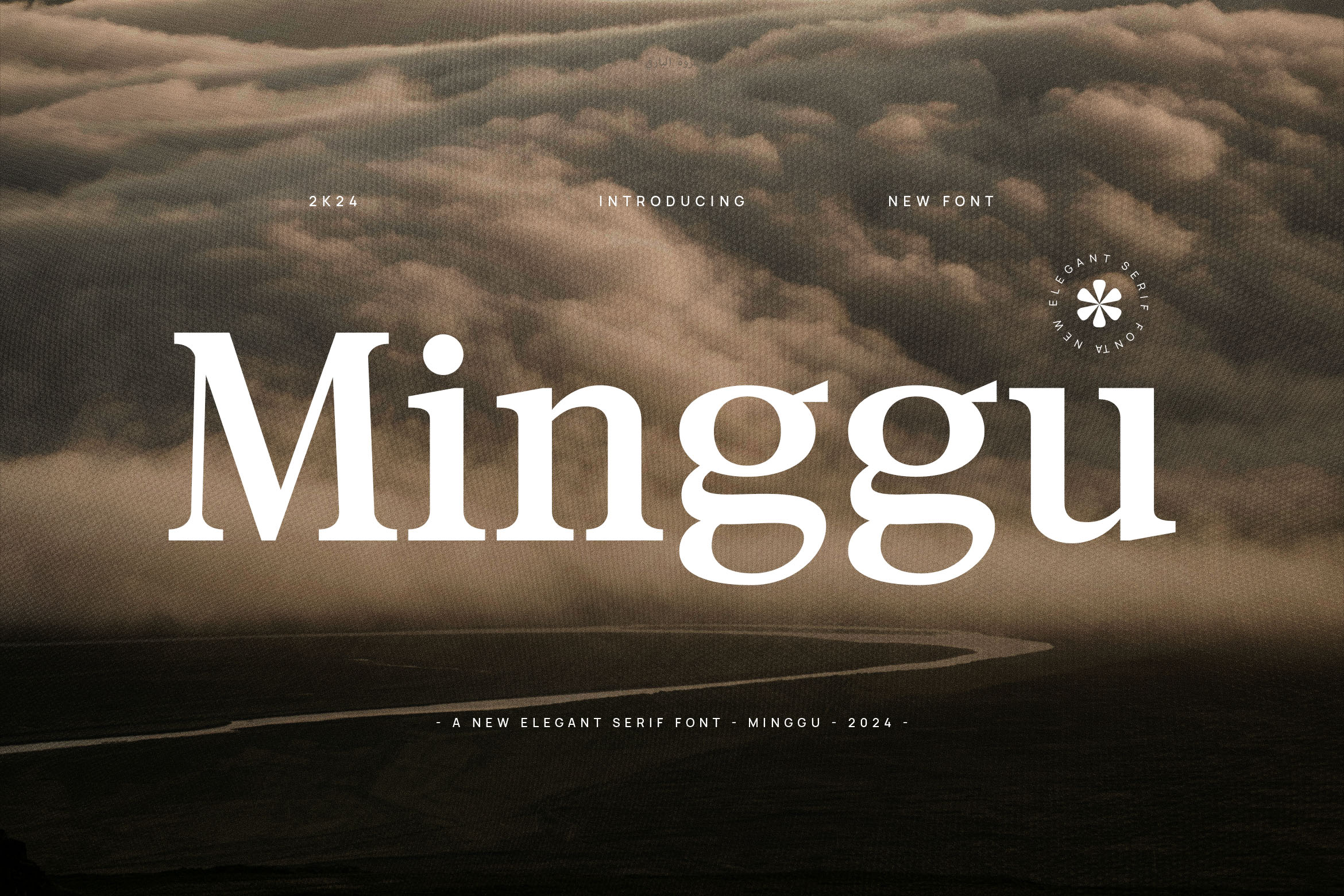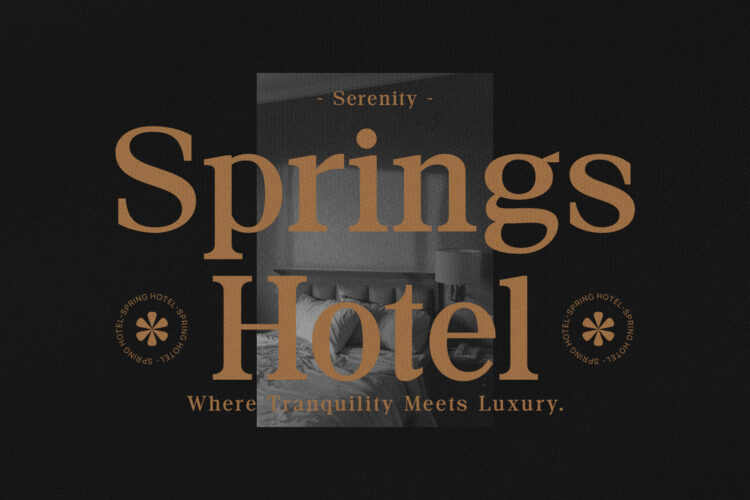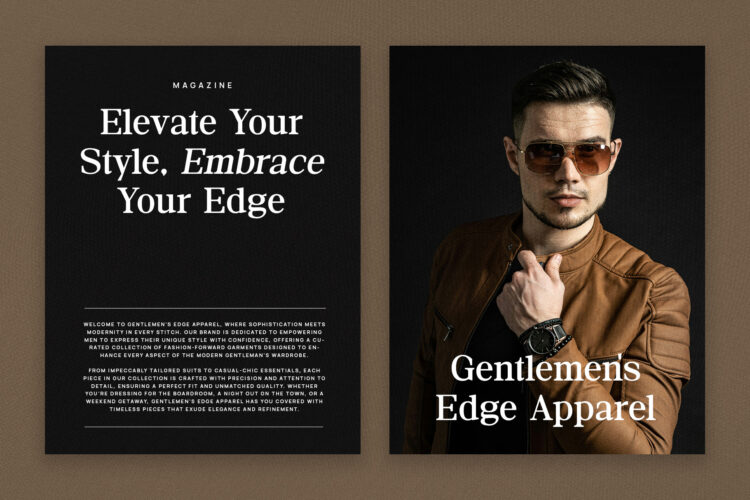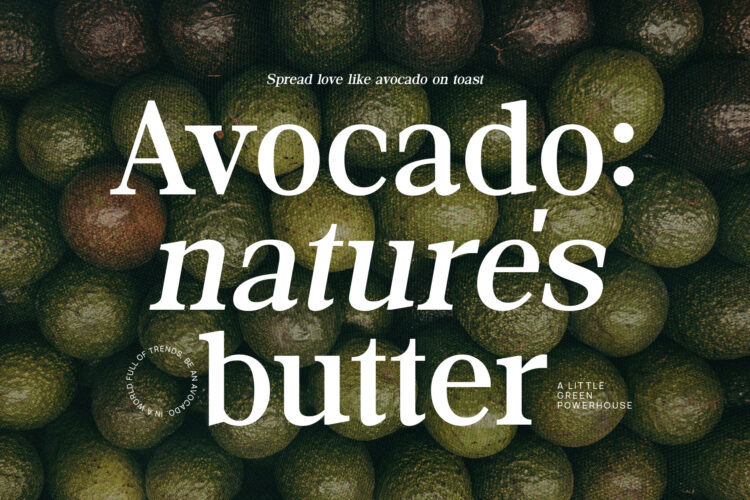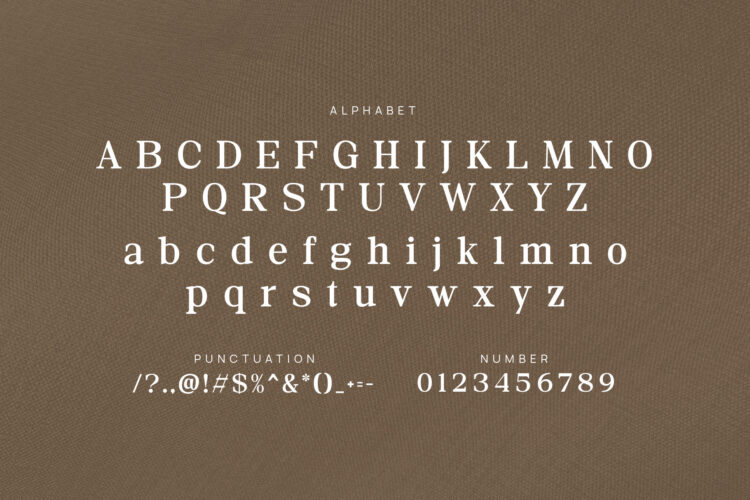
Introducing our new Minggu, modern serif font with elegant style this is perfect for branding, logos, invitation, magazines, product packaging and more.
Minggu – Elegant Serif Font